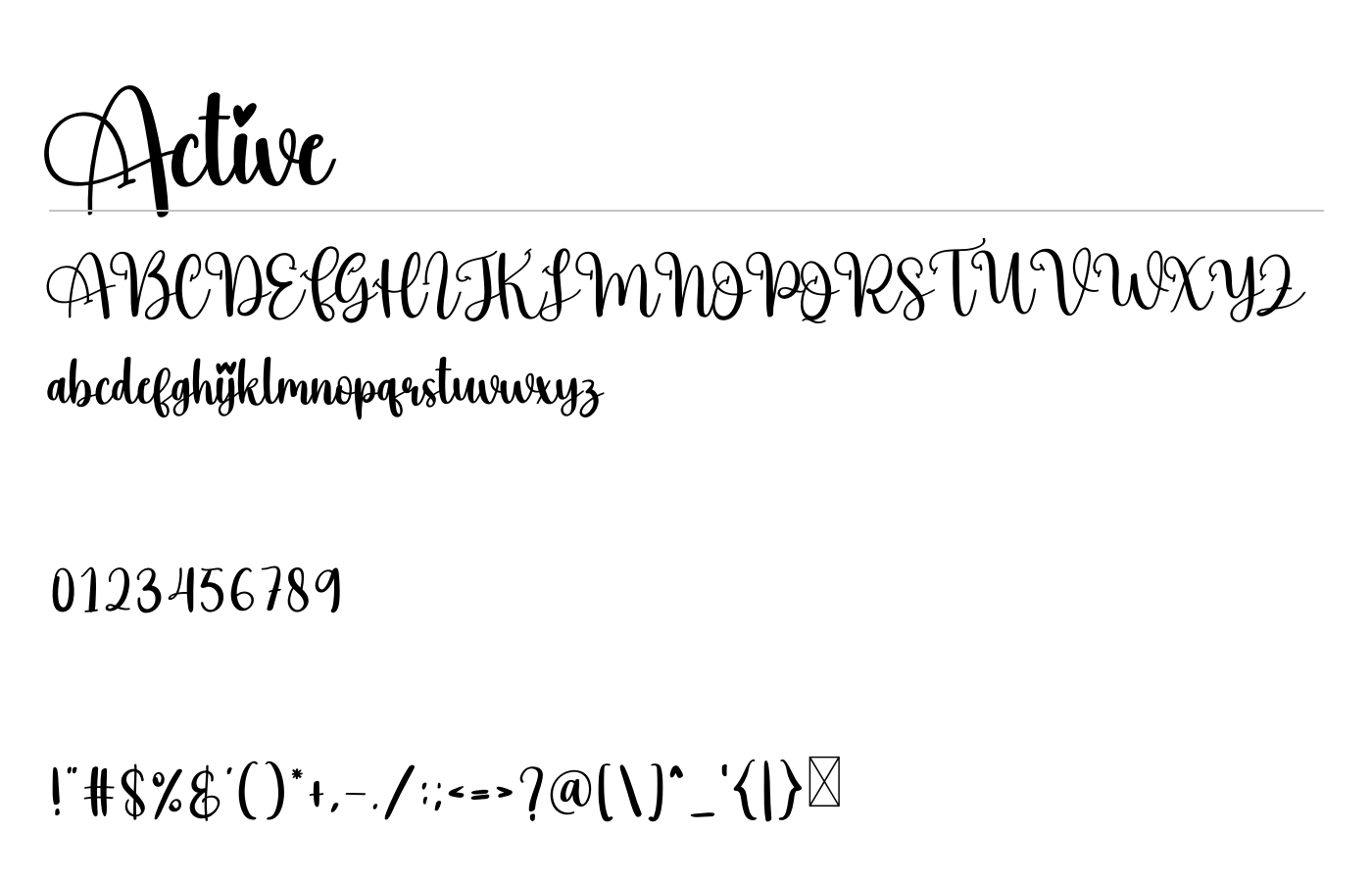
Active Font is a playful and elegant script typeface featuring a lively, hand-lettered style with smooth, flowing strokes and charming flourishes. Its casual yet refined look makes it perfect for creative branding, invitations, and feminine design projects that seek a personal and warm touch. This font works best in headlines or decorative uses where a friendly, approachable, and artistic vibe is desired.
Active Font